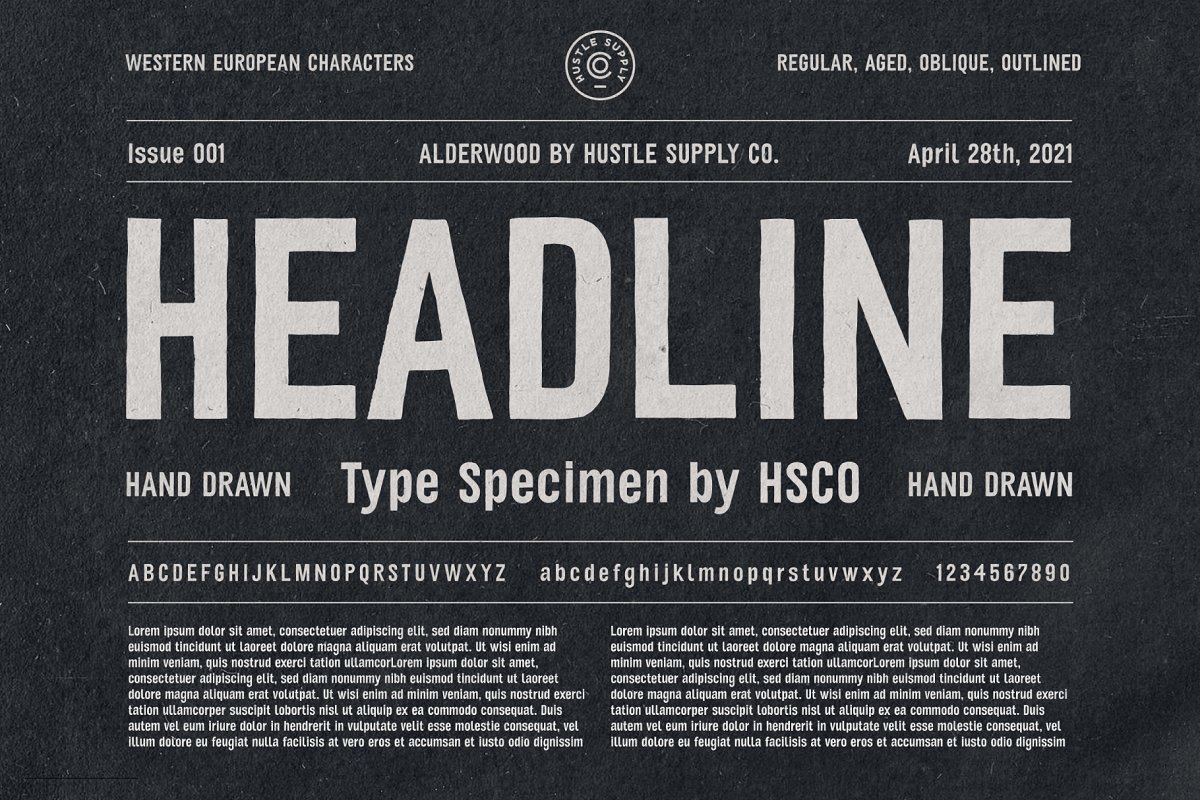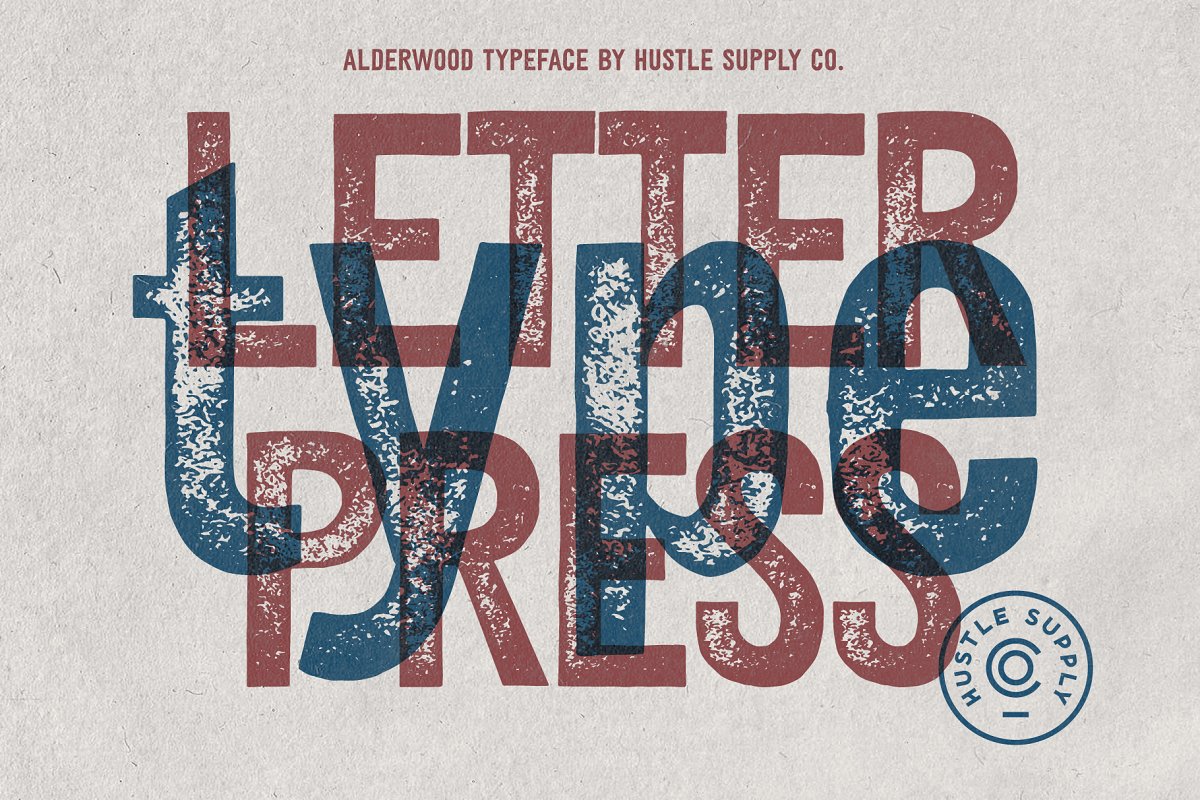
About the Alderwood Font
Alderwood | A Condensed Hand Drawn Typeface:Alderwood is a hand drawn condensed typeface that comes in multiple styles / weights, Get it in regular, stamp, outlined with oblique versions of each, The subtle imperfection of hand drawn type adds character to projects that require a more grassroots vintage aesthetic, What’s Included?→ 6 Fonts Files→ Western European Characters Included→ Web Fonts